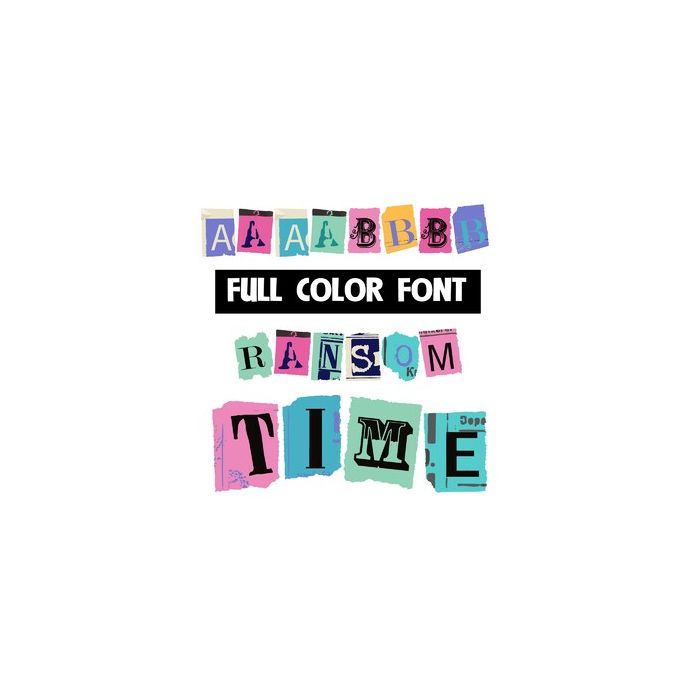
This full-color font features a variety of lettering styles in ransom style. There is an alt uppercase with secondary colors that you can access through your system's character map. This font works best for titles, displays, posters and more. Please note color fonts will show as black in non compatible programs. This font type is compatible with Silhouette Studio.